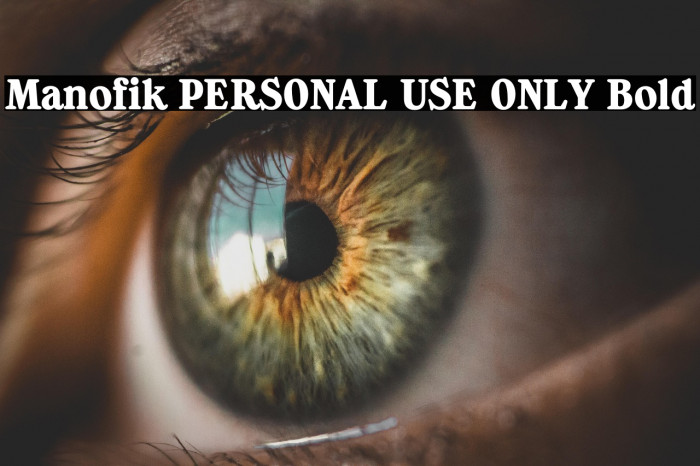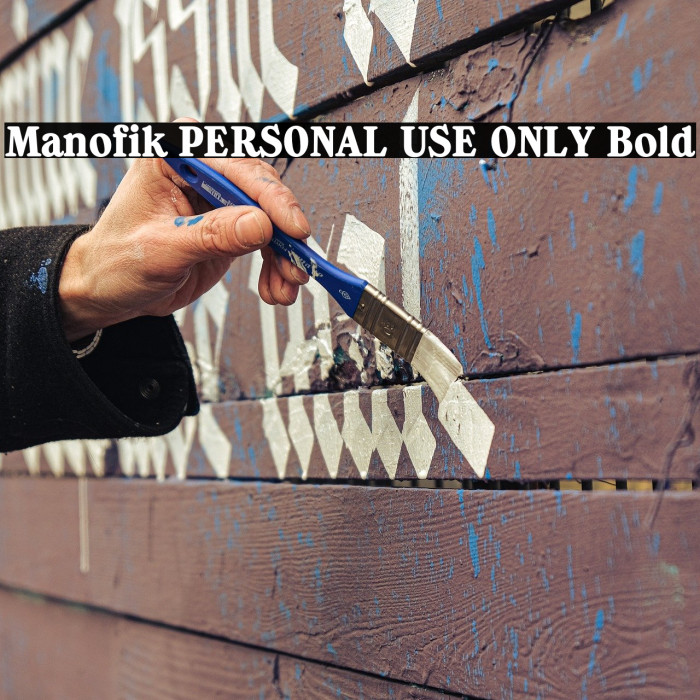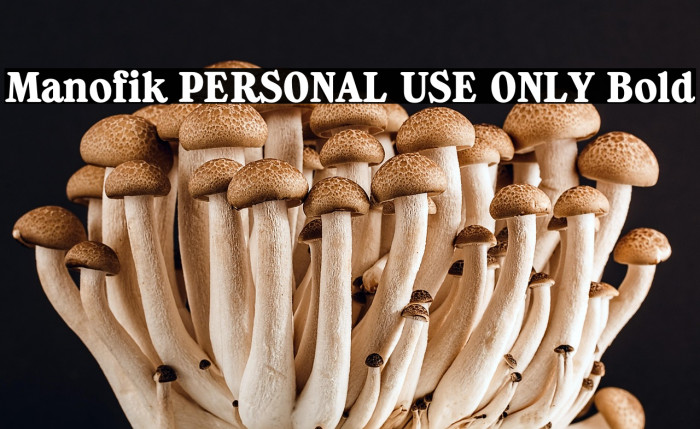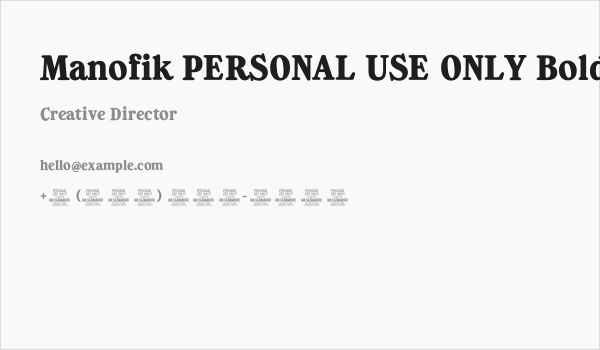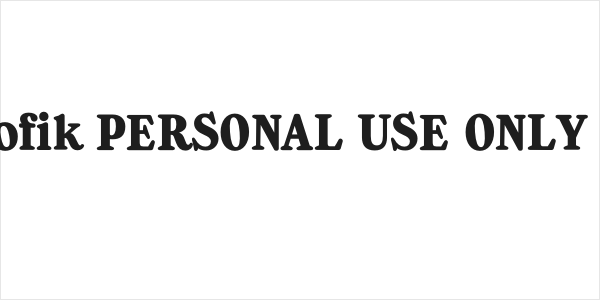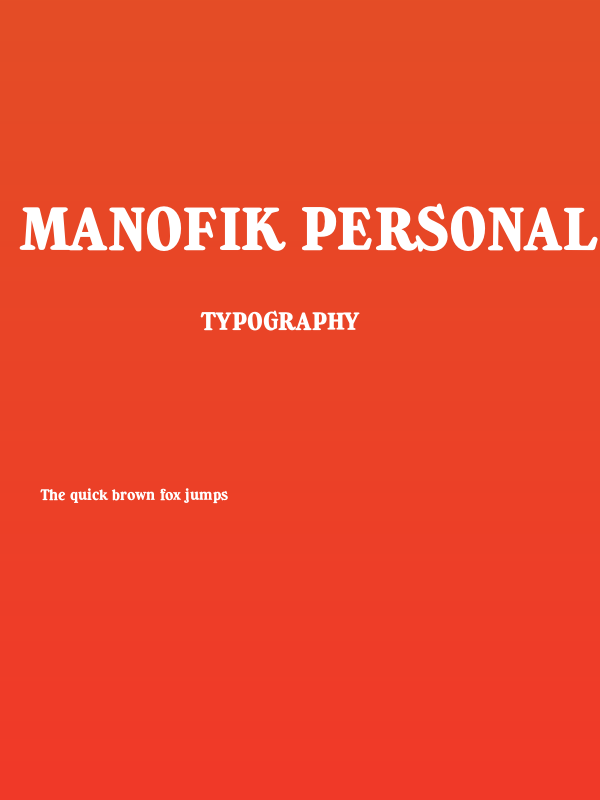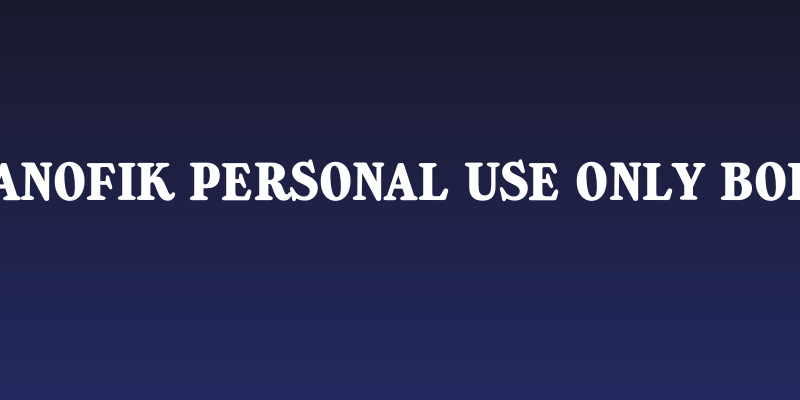
Manofik PERSONAL USE ONLY Bold Font
Manofik PERSONAL USE ONLY Bold Description
This font exhibits a bold and robust style with strong, thick strokes that give it a commanding presence. The characters are well-defined with a slight curvature that adds a touch of elegance to the overall appearance. The uppercase letters are particularly striking, with a uniform height and width that create a sense of balance and stability. The lowercase letters maintain this consistency, offering a harmonious flow that is visually appealing. The numerals and special characters are crafted with the same attention to detail, ensuring readability and aesthetic cohesion. This font's boldness makes it suitable for impactful designs where emphasis is needed.